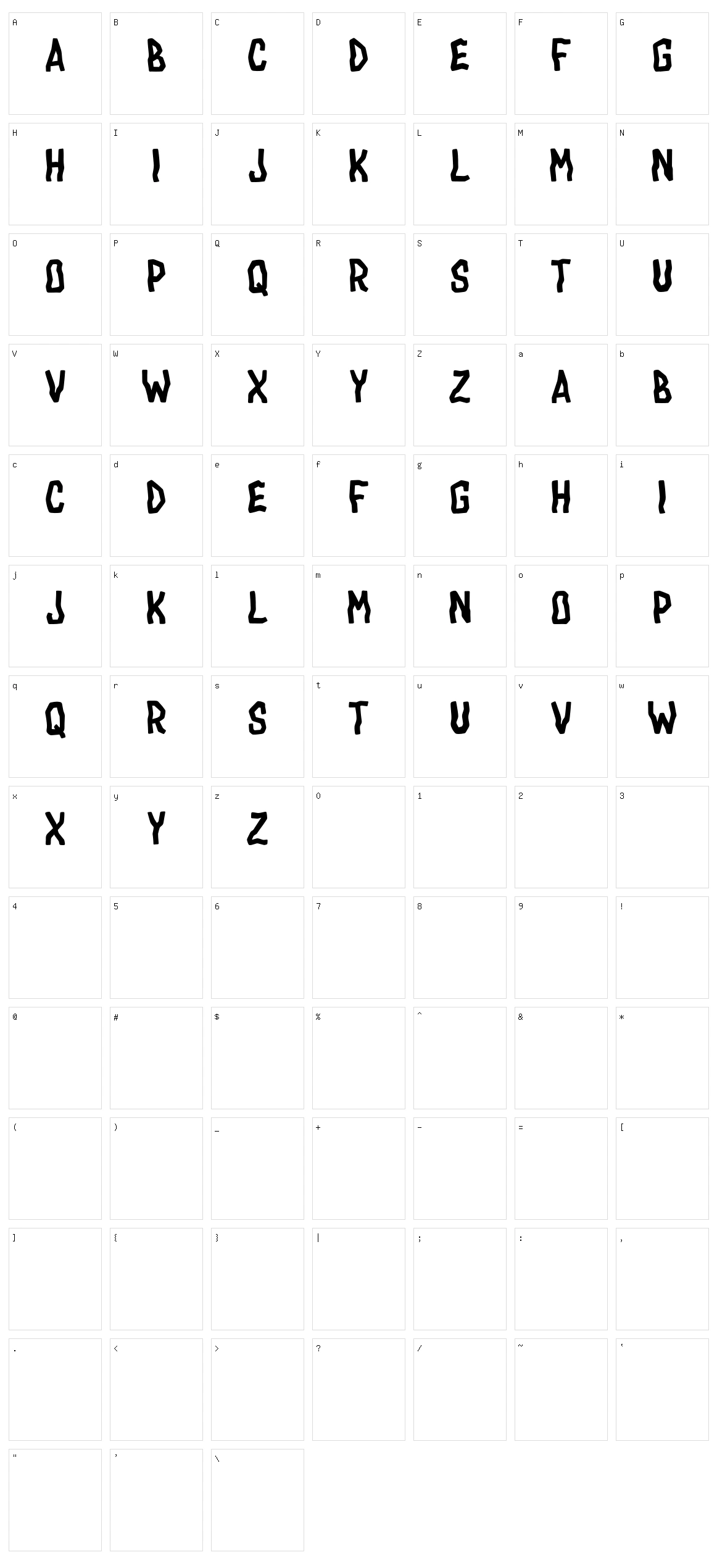
The free font Drac Tombstone is carefully designed by Forberas Club, showcasing a thoughtful balance of creativity and usability and falls under the Halloween font style. When you download the ZIP file, it contains only 26.02 KB of font files, making it lightweight and quick to download. Please review the license details below to understand permitted usage and distribution rights. If license information is not available, we recommend using this font for personal projects only or contacting the author directly for commercial usage permissions.